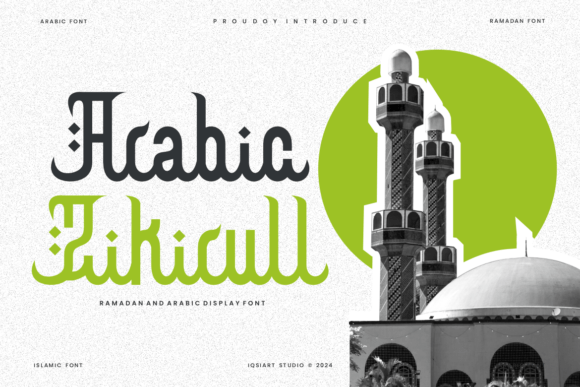
Arabic Zikirull Font: Elevate Your Design with Timeless Elegance
Arabic Zikirull Font is a stunning and classic Arabic decorative font that has captured the hearts of designers and crafters worldwide. Its unique and beautiful touch makes it an ideal choice for creating eye-catching logos, branding, and quotes that leave a lasting impression. In this article, we’ll dive into the world of Arabic Zikirull Font, exploring its features, benefits, and uses, as well as provide valuable insights for designers and crafters looking to elevate their design game.
What is Arabic Zikirull Font?
Arabic Zikirull Font is a lovely and timeless Arabic decorative font that boasts a distinctive and elegant style. Every letter in this font has a unique and beautiful touch, which sets it apart from other fonts. Its classic design makes it perfect for creating traditional and modern designs that require a touch of sophistication and elegance.
Key Features of Arabic Zikirull Font
- Unique and Beautiful Touch: Each letter in Arabic Zikirull Font has a distinct and beautiful touch that adds a touch of elegance to your designs.
- Timeless Design: The font’s classic design ensures that your designs will remain timeless and relevant for years to come.
- Elegant Style: Arabic Zikirull Font features an elegant style that is perfect for creating sophisticated and refined designs.
- Versatile: This font is suitable for a wide range of design projects, including logos, branding, quotes, and more.
Benefits of Using Arabic Zikirull Font
Arabic Zikirull Font offers numerous benefits for designers and crafters, including:
- Eye-Catching Designs: The font’s unique and beautiful touch ensures that your designs will grab attention and leave a lasting impression.
- Enhanced Creativity: Arabic Zikirull Font’s elegant style and timeless design inspire creativity and help you bring your ideas to life.
- Professional Look: The font’s sophisticated design gives your designs a professional look that is perfect for branding and marketing materials.
- Easy to Read: Despite its decorative nature, Arabic Zikirull Font is easy to read, making it suitable for body text and quotes.
Uses of Arabic Zikirull Font
Arabic Zikirull Font is a versatile font that can be used for a wide range of design projects, including:
- Logos and Branding: Create eye-catching logos and branding materials that showcase your brand’s personality and style.
- Quotes and Posters: Use Arabic Zikirull Font to create stunning quotes and posters that inspire and motivate.
- Wedding and Event Stationery: Add a touch of elegance to your wedding and event stationery with this beautiful font.
- Packaging and Product Design: Use Arabic Zikirull Font to create eye-catching packaging and product designs that stand out on store shelves.
To get the most out of Arabic Zikirull Font, here are some valuable tips for designers and crafters:
- Experiment with Colors: Try pairing Arabic Zikirull Font with different colors to create unique and eye-catching designs.
- Play with Ligatures: Take advantage of the font’s ligatures to add a touch of elegance and sophistication to your designs.
- Mix and Match: Combine Arabic Zikirull Font with other fonts to create interesting and dynamic designs.
- Pay Attention to Kerning: Ensure that your design looks professional by paying attention to kerning and letter spacing.
Arabic Zikirull Font is a timeless and elegant Arabic decorative font that is perfect for designers and crafters looking to elevate their design game. Its unique and beautiful touch, combined with its versatility and ease of use, make it an ideal choice for a wide range of design projects. Whether you’re creating logos, branding, quotes, or packaging, Arabic Zikirull Font is sure to inspire and help you bring your ideas to life.